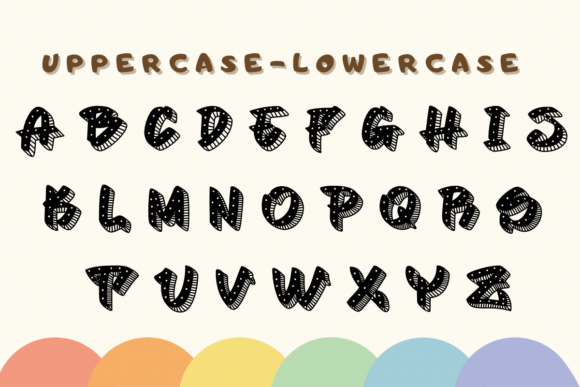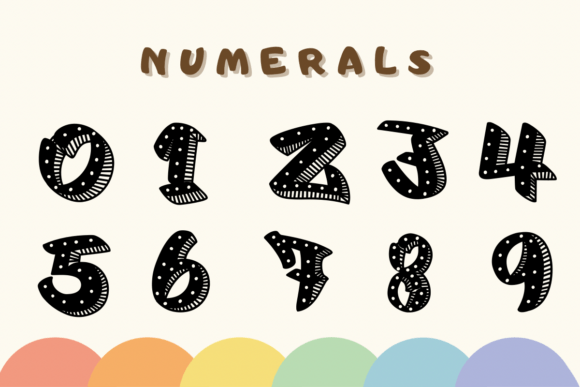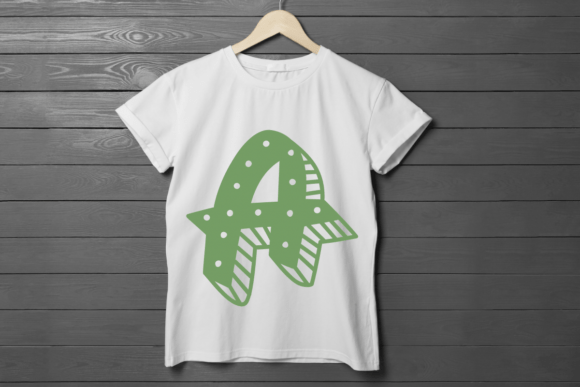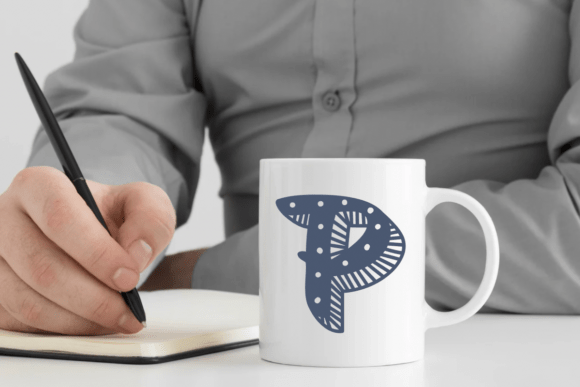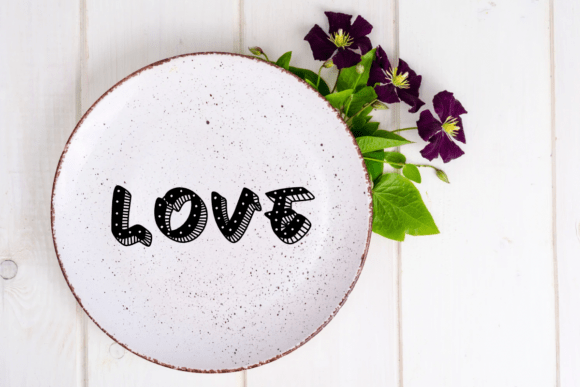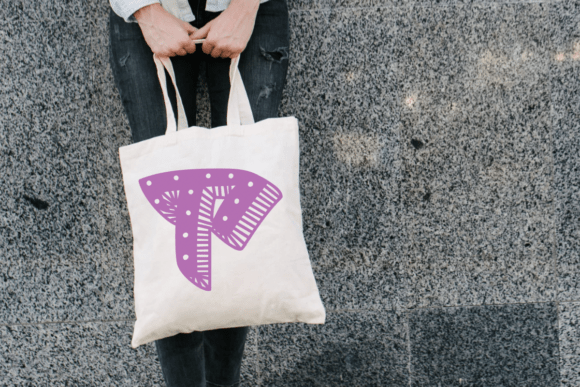
The Joy of Baby Font: A Designer’s Dream
Have you ever stared at a blank page, waiting for inspiration to strike? For designers, this moment can be both exhilarating and daunting. But what if that spark of creativity came in the form of a playful, whimsical font that’s sure to put a smile on your face? Enter Baby Font, a charming handwritten font that’s bursting with color and personality.
Designed to bring joy and innocence to any project, Baby Font is the perfect choice for nursery designs, baby shower invitations, children’s books, or early learning branding. Its playful style and soft shapes make it a valuable addition to any designer’s toolkit, allowing them to create projects that are both fun and engaging.
With Baby Font, designers can add a touch of whimsy and personality to their work, making it a standout choice for anyone looking to create something truly special.
Baby Font Key Features
- Font Family: Baby Font is a sans-serif font designed specifically for children’s content and applications.
- Unique Characteristics: Baby Font features rounded edges, smooth curves, and a child-friendly design aesthetic, making it perfect for children’s books, educational materials, and apps.
Baby Font Review
As a designer, I was excited to dive into the world of Baby Font, a typeface designed specifically for young readers. Overall, I was impressed with its potential, but there are some limitations to consider.
- Legibility: Baby Font is incredibly easy to read, even for children who are just starting to learn to read.
- Colorful: The font’s playful, rounded design makes it perfect for children’s books, educational materials, and more.
- Customization: The font can be easily customized to fit your brand or design style.
- Stylistic limitations: Baby Font is a very playful font, which may not be suitable for more formal or professional applications.
- Not scalable: The font is not available in a range of weights, which can make it difficult to use for headings or body text.
- Not suitable for fine typography: Baby Font’s rounded design and lack of detail may not be ideal for fine typography or complex layouts.
Baby Font is a great choice for designers looking to create engaging, child-friendly content. While it has its limitations, it’s perfect for children’s books, educational materials, and other applications where a playful, easy-to-read font is needed.
Baby Font is commonly used in:
- Children’s birthday invitations and party decorations.
- Children’s book illustrations and designs.
- Advertising and marketing materials for family-friendly products.